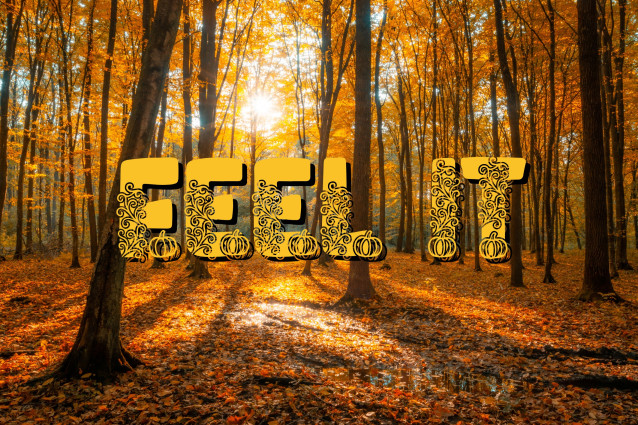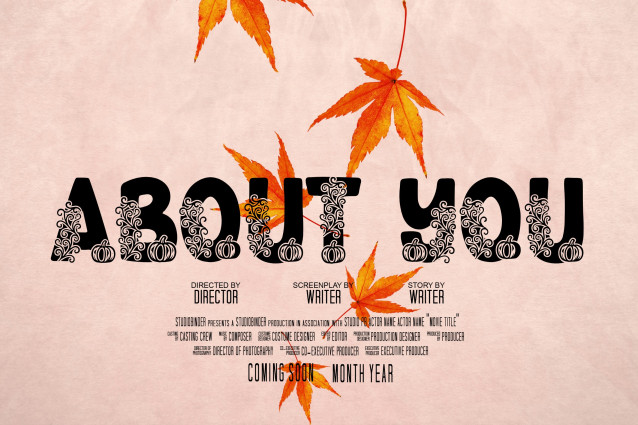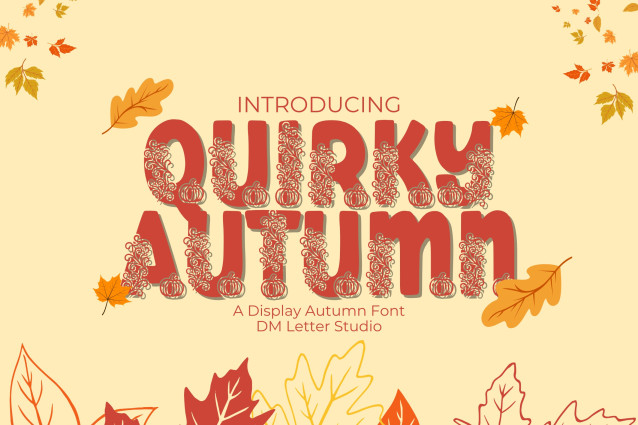
Quirky Autumn Font
Quirky Autumn Font – Playful & Seasonal Display Font, is a whimsical and cozy display font inspired by the colors and feelings of fall. With its hand-drawn charm and quirky letterforms, this font is perfect for seasonal branding, fall-themed invitations, cozy apparel designs, and autumn-inspired quotes. Its playful personality captures the warm and fun essence of the season.